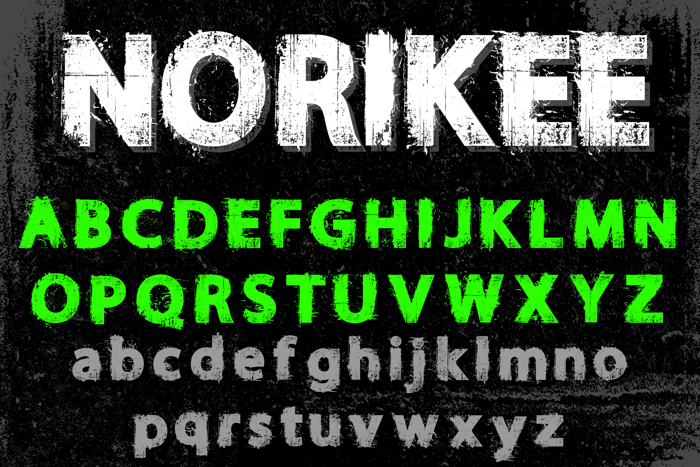
NORIKEE DEMO Font
NORIKEE
- Bold textured inspired font perfect on your projects, covers, etc.
- Modern distressed font with effects for branding, website, mobile app etc.